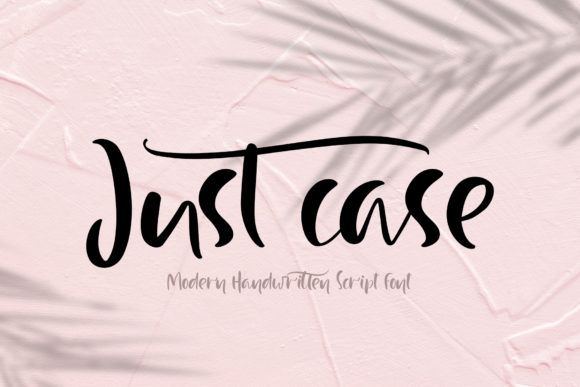
Introducing Just Case Font, a delightful handwritten font with a light and airy feel. Immerse yourself in its authentic charm and transform any design concept into a standout creation. Experience the magic of Just Case Font, crafted with tender strokes and a touch of elegance, taking your designs to new heights.
With Just Case, your blog text will radiate a unique and personal touch. Its delicate lines gently flow, creating an intimate atmosphere that captivates readers. Each letter dances across the screen, inviting them to delve deeper into your words, as if revealing a secret message just for them.
Unleash your creativity with Just Case, the perfect font for modern calligraphy, heartfelt quotes, and endearing invitations. Its versatility knows no bounds, lending an enchanting touch to wedding stationery, personalized gifts, and eye-catching social media posts. Embark on a creative journey with Just Case, where imagination and design intertwine.
Step into a world where elegance meets playfulness, where each letter in Just Case paints a story of its own. Its whimsical nature brings a smile to the face and adds a dash of charm to any project. Let your designs blossom with Just Case, a font that evokes a sense of wonder and joy.
Just Case is more than just a font; it's an expression of your individuality. Let your words dance with grace and captivate hearts with the unique allure of Just Case. Discover the endless possibilities it holds, transforming ordinary designs into captivating masterpieces.